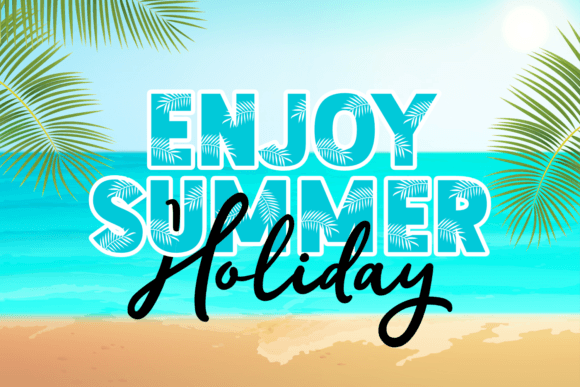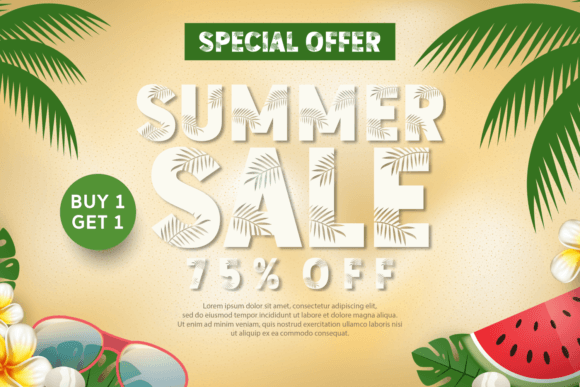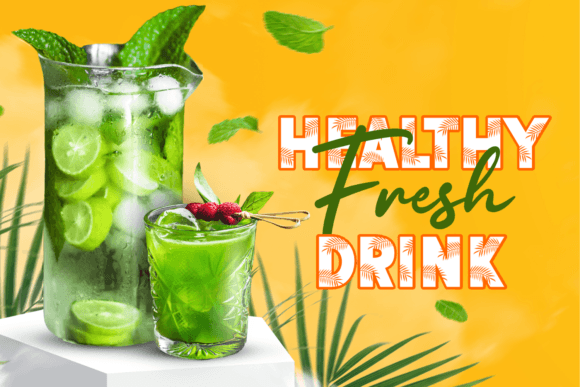
Introduction to Shine Good Font
Remember that moment when you stumbled upon a unique font that perfectly captured the essence of your creative project? For many designers, it’s a thrill that never gets old. And for those who have been searching for the perfect design resource to elevate their travel-themed projects, we’ve got exciting news.
Meet the Shine Good Font, a one-of-a-kind decorative font that’s about to become your new go-to for all things adventurous. Its intricate details and flowing lines make it a standout choice for book covers, travel brochures, and even social media graphics. Whether you’re working on a high-quality design project or just need a free download to spice up your creative endeavors, this font is sure to shine.
What sets the Shine Good Font apart is its versatility and high-quality design, making it a valuable resource for designers of all levels. With its transparent background, you can easily layer it over any image or color palette, giving you endless possibilities for creative expression.
- High-quality design: This font features intricate details and smooth lines, ideal for creative projects that demand a premium look.
- Unique characteristics: The Shine Good Font features a unique blend of modern and vintage elements, setting it apart from other design resources.
- Perfect for various design applications: Suitable for logos, branding, typography, and other creative projects that require a distinctive and elegant look.
Honest Review: Shine Good Font
I recently stumbled upon the Shine Good Font while searching for a free download to enhance my creative project. As a designer, I’m always on the lookout for high-quality design resources that can elevate my work.
The Shine Good Font did not disappoint. The transparent background made it easy to integrate into my design, and the font’s unique style added a touch of sophistication to my project. ✨
- Unique style that adds a touch of sophistication
- Only available in a limited range of weights
Overall, I’m impressed with the Shine Good Font. While it may have some limitations, it’s a great addition to any designer’s toolkit. ⚠️ With a little creativity, you can unlock its full potential and take your design to the next level.
Shine Good Font
To maximize the effectiveness of the Shine Good Font, use it for headings and titles in your design. Experiment with different font sizes and colors to create visual interest. Combine the font with other design resources to create a cohesive and engaging visual identity.
The Shine Good Font is ideal for a variety of creative projects, including:
- Business presentations
- Graphic design projects
- Wedding invitations
- Brochures